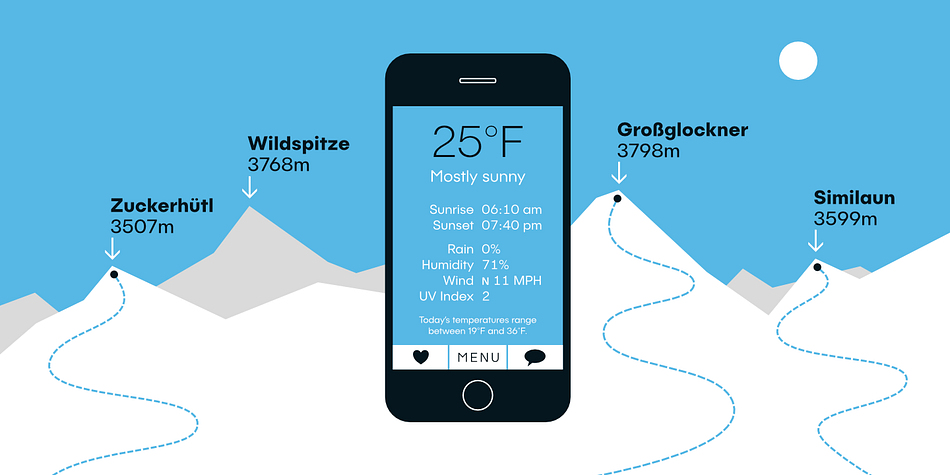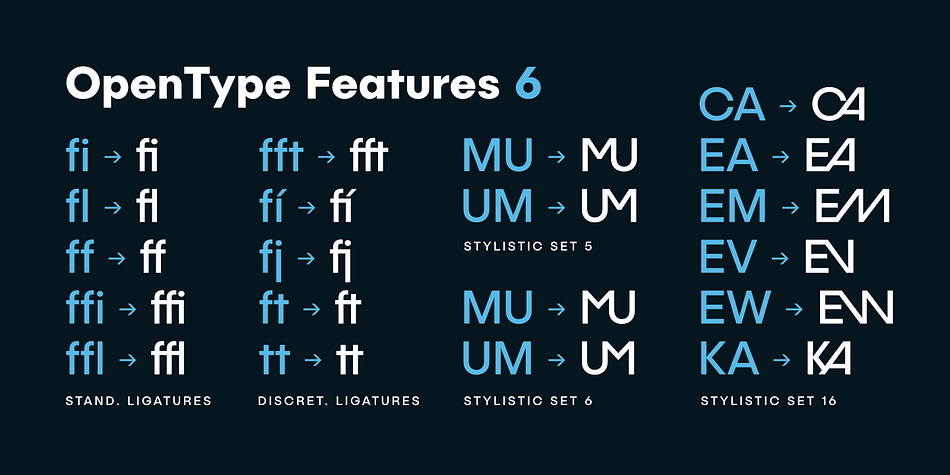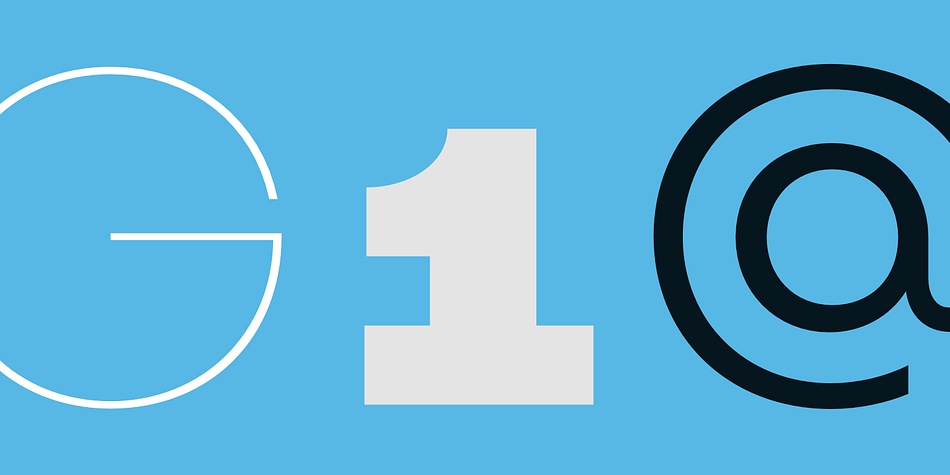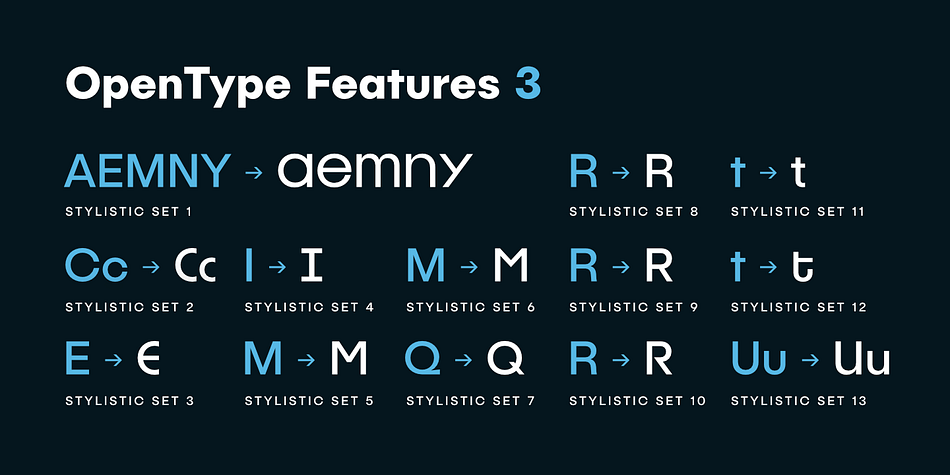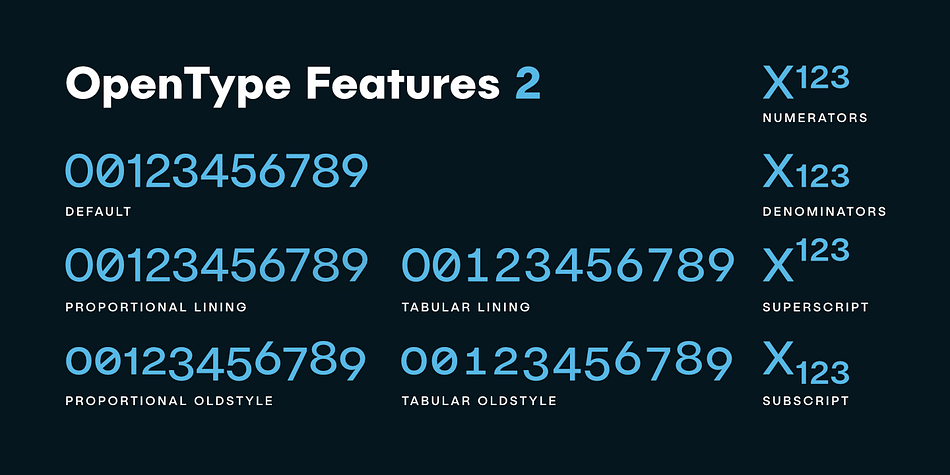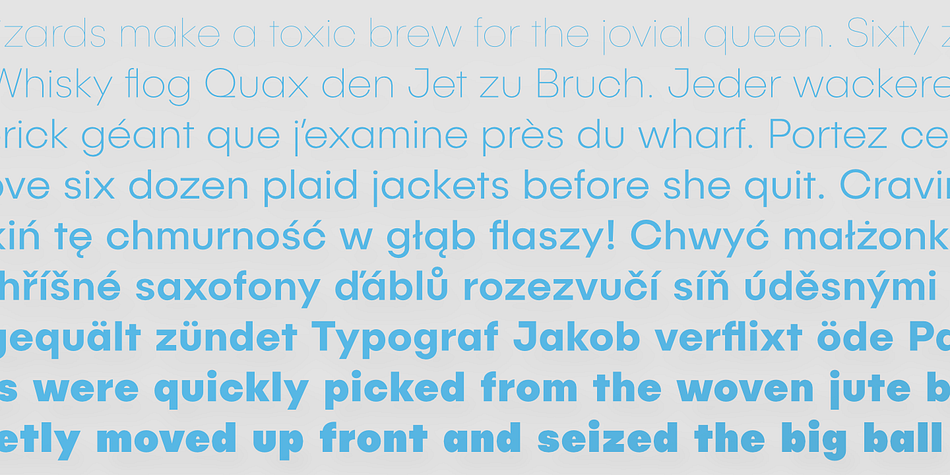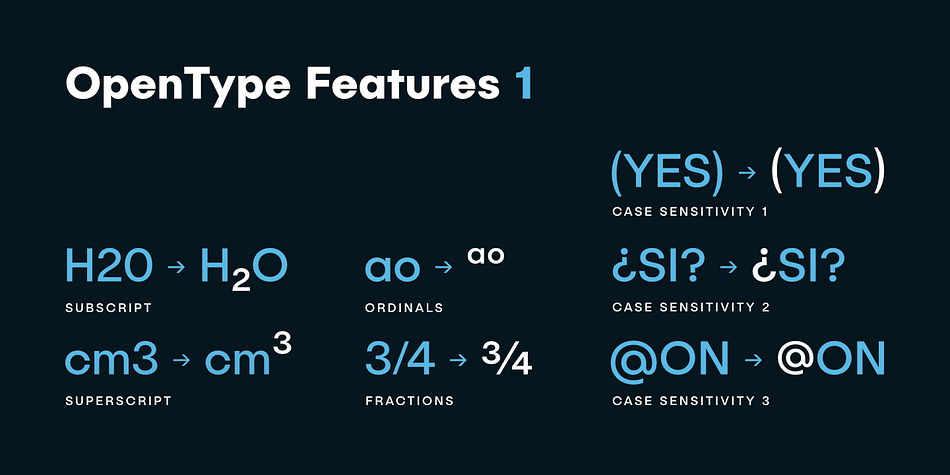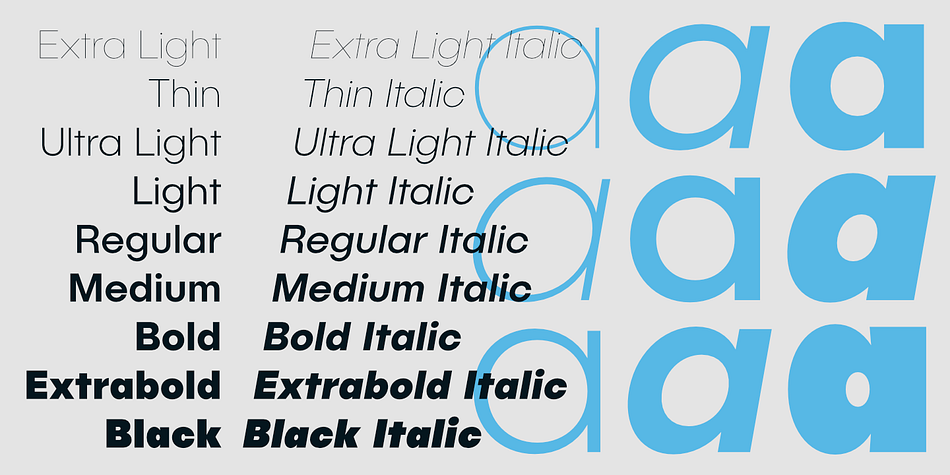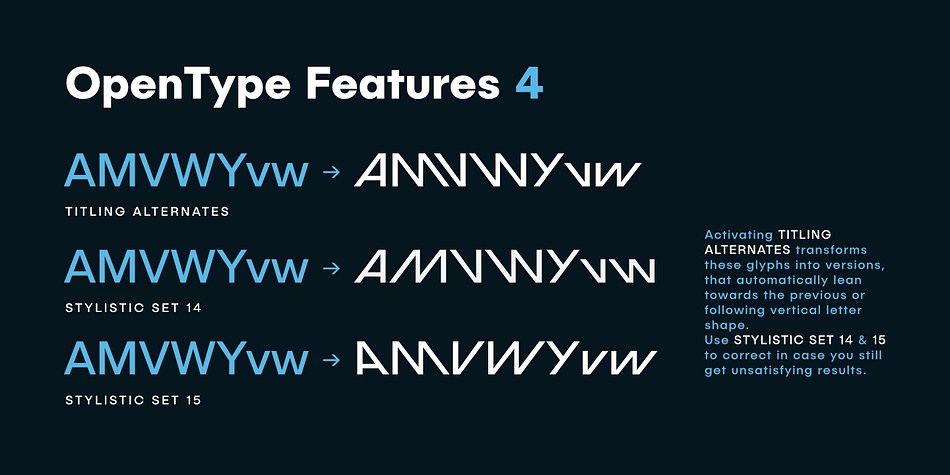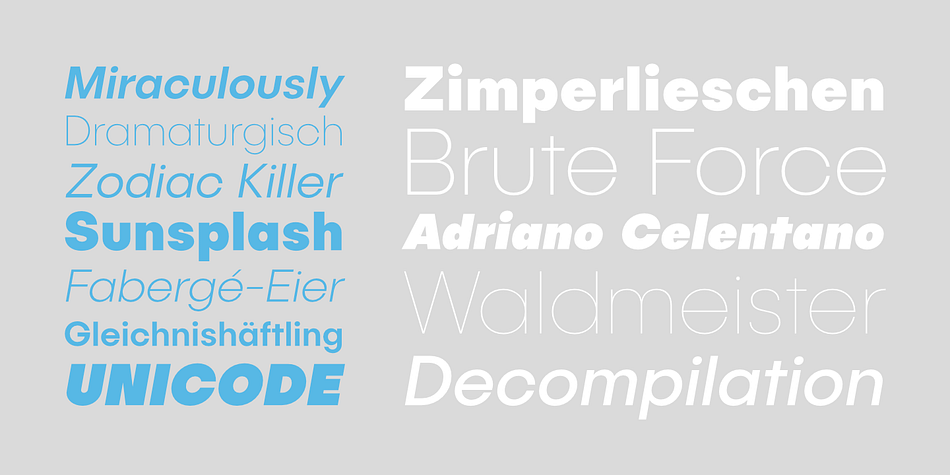
Designed by Marcus Sterz, Publica Sans is a sans serif font family. This typeface has eighteen styles and was published by FaceType.
Publica Sans is a new typeface by Marcus Sterz. Publica Sans is a workhorse – with loads of subtle open type features, tabular options, rare currencies signs and symbols and arrows, Publica Sans provides everything you need for big design tasks like signage or corporate design.